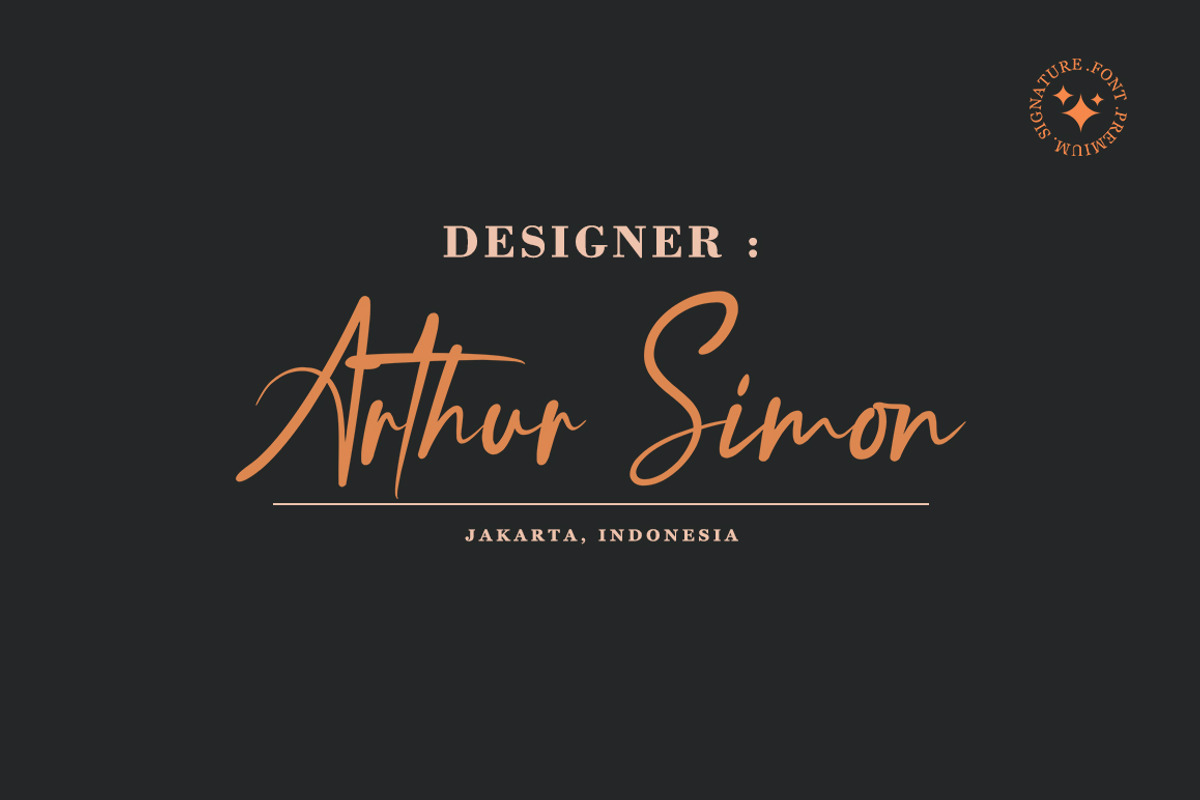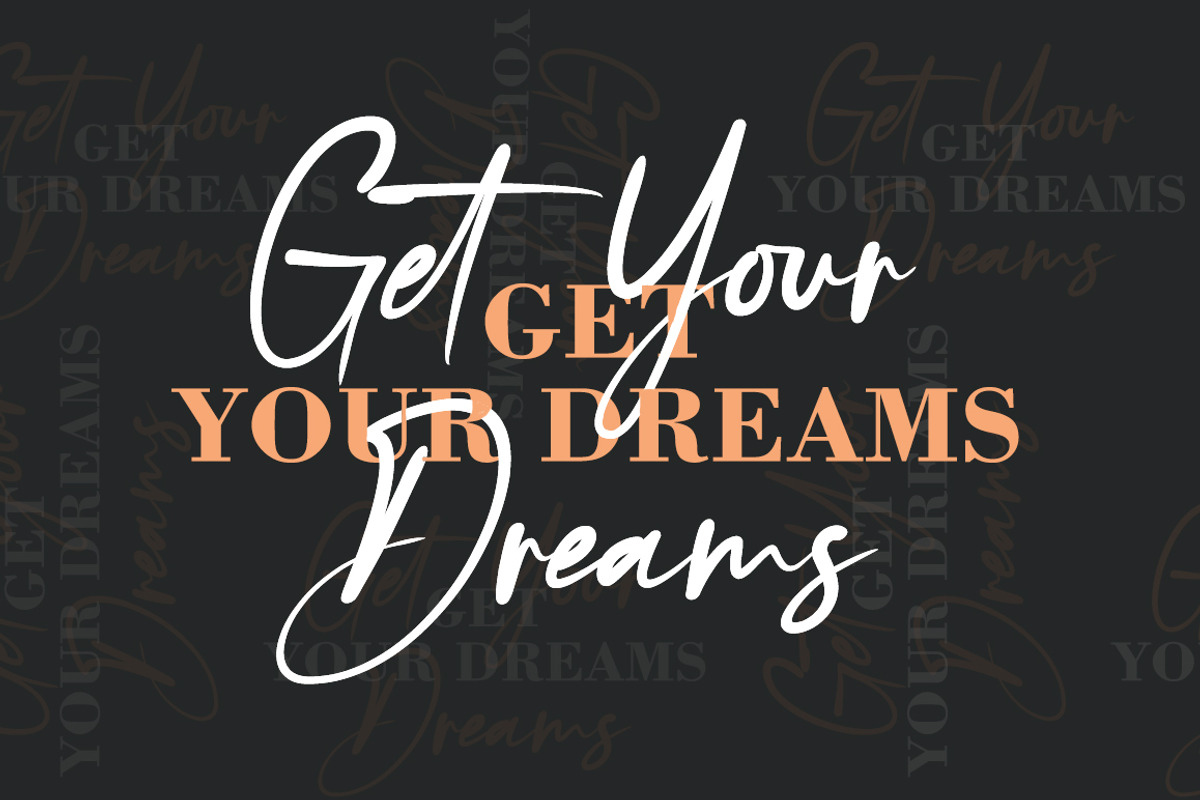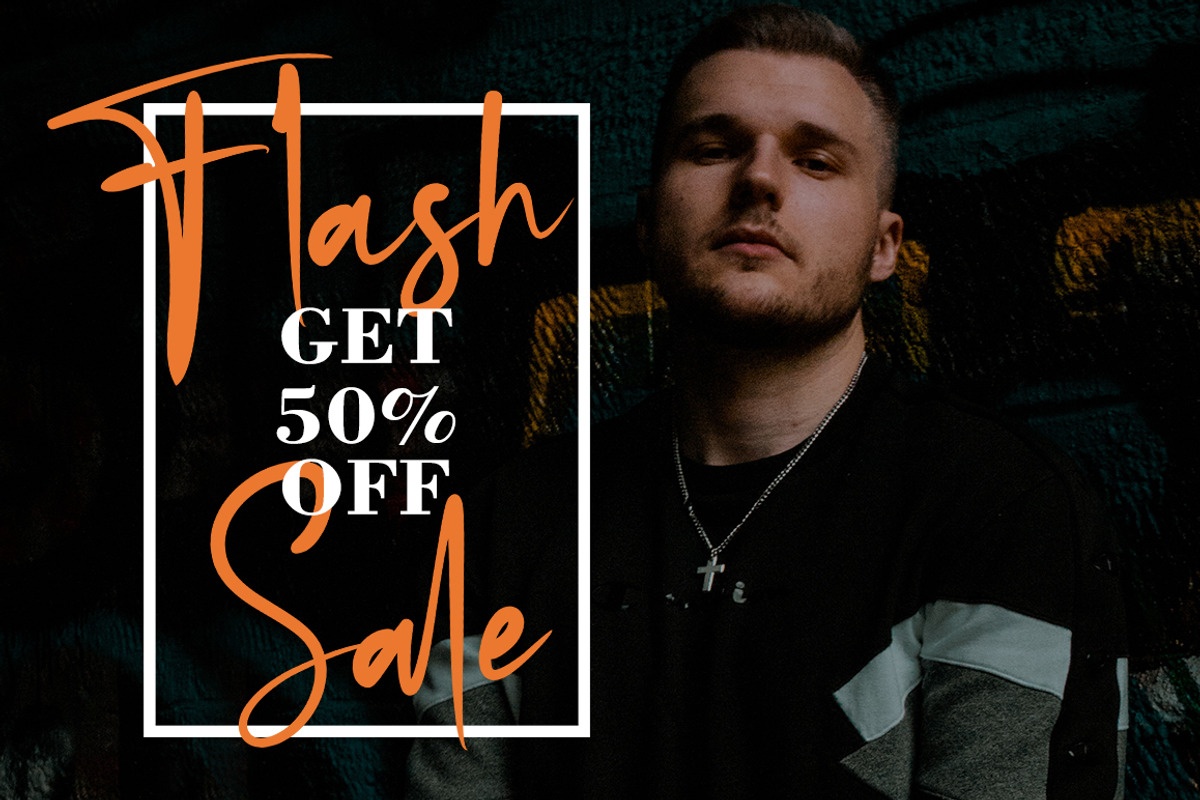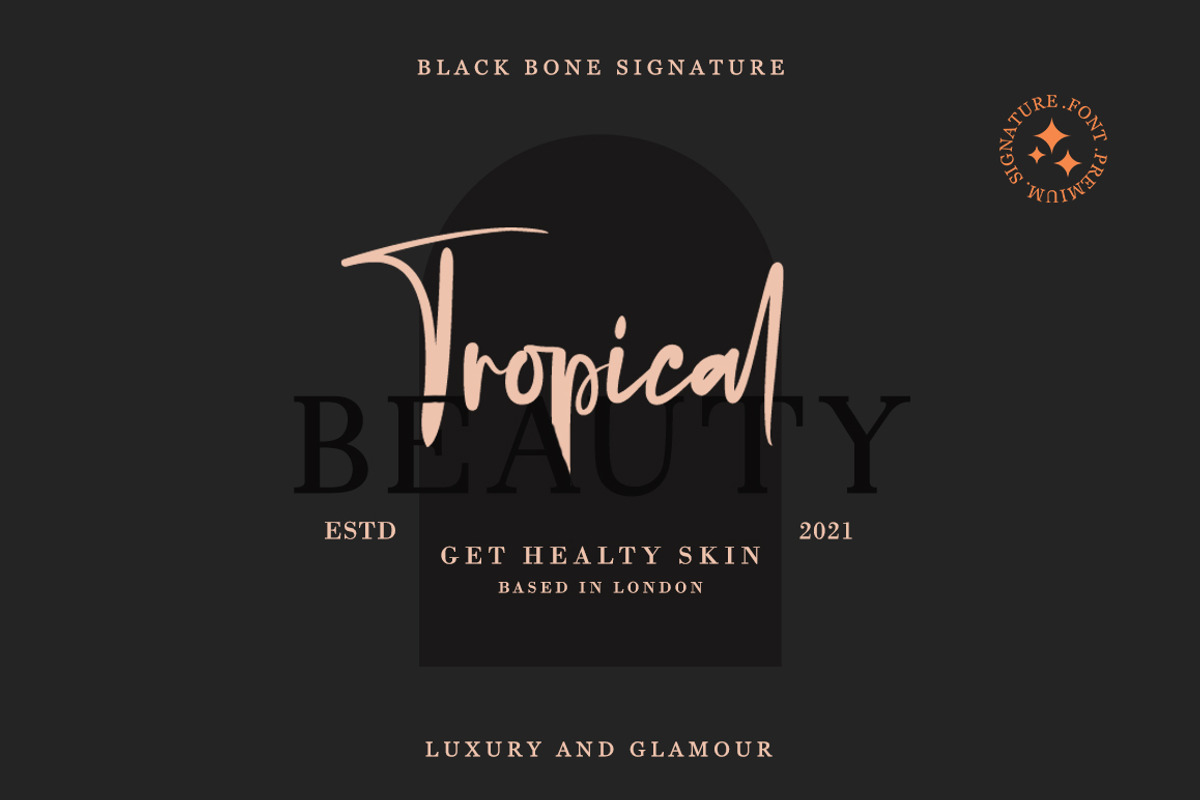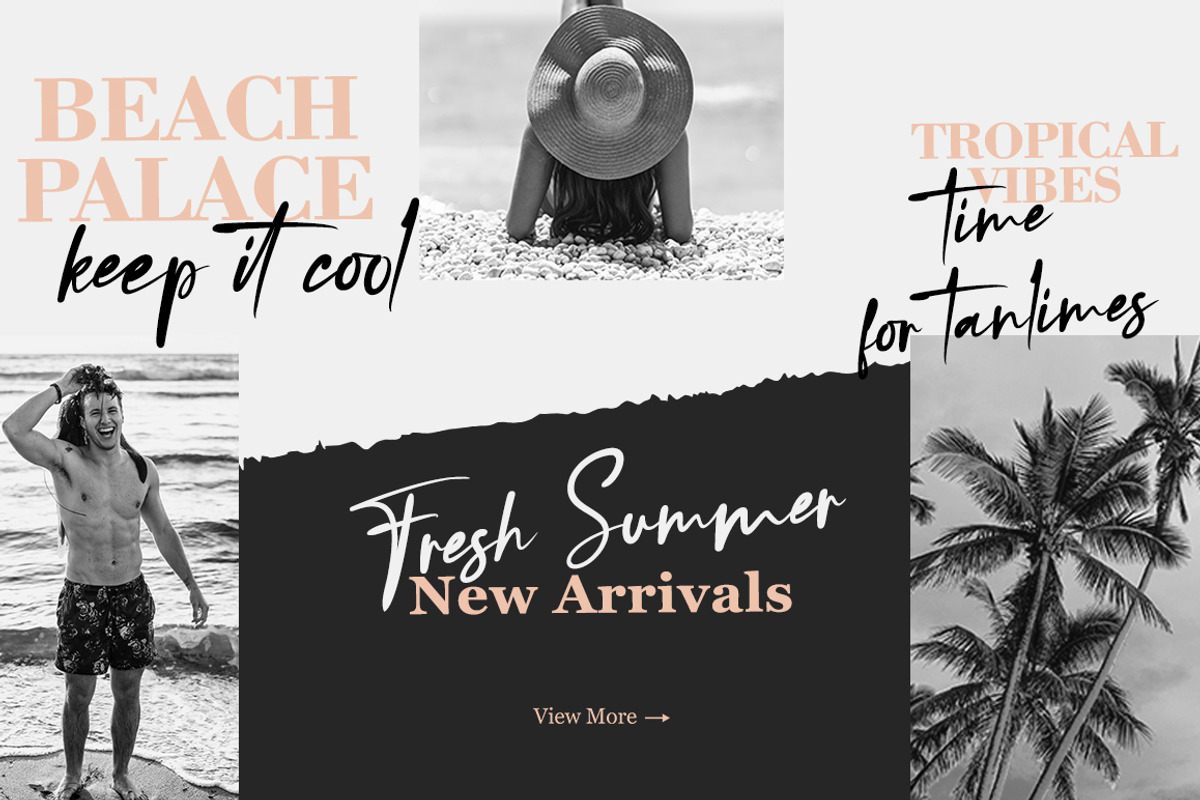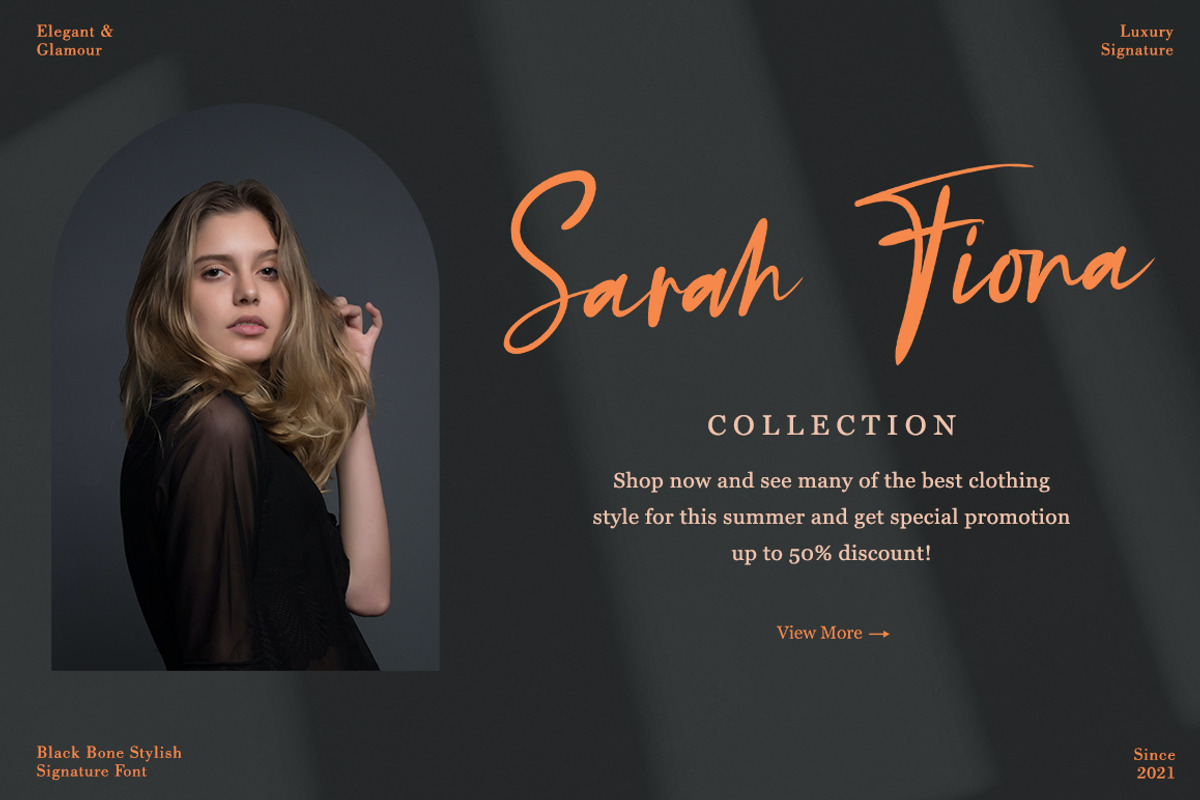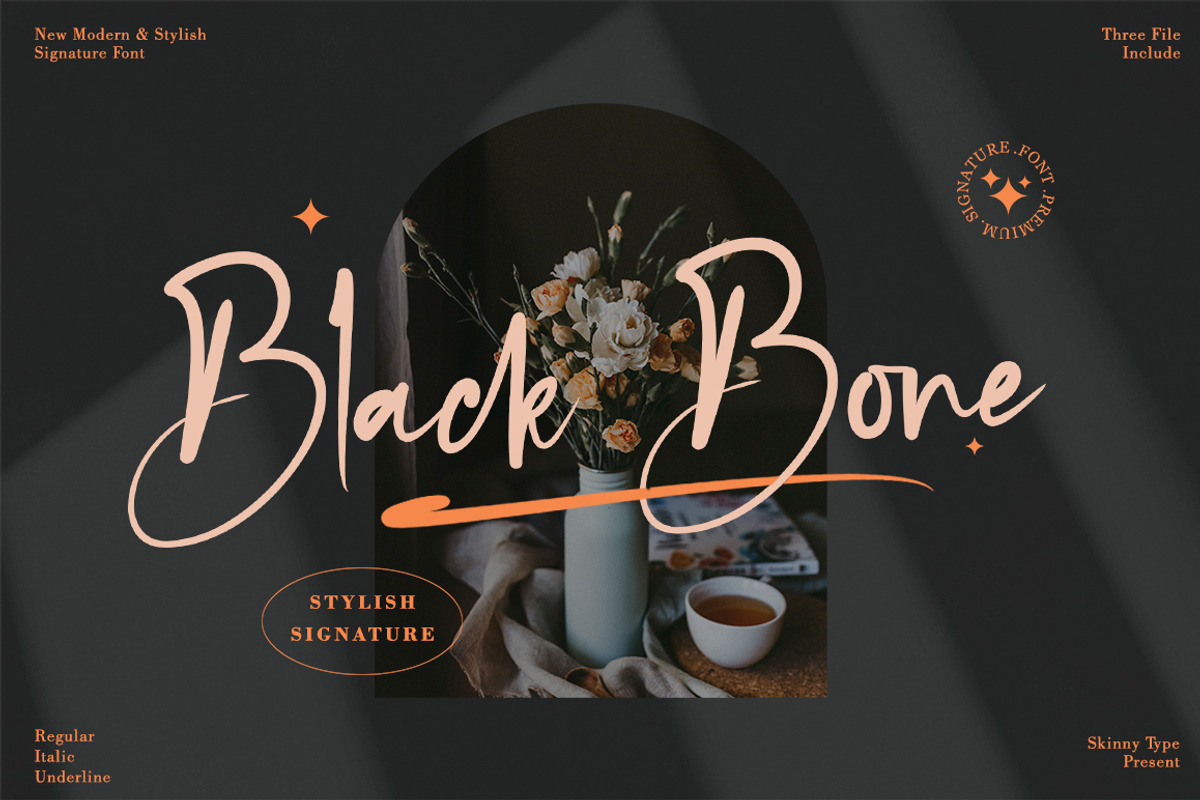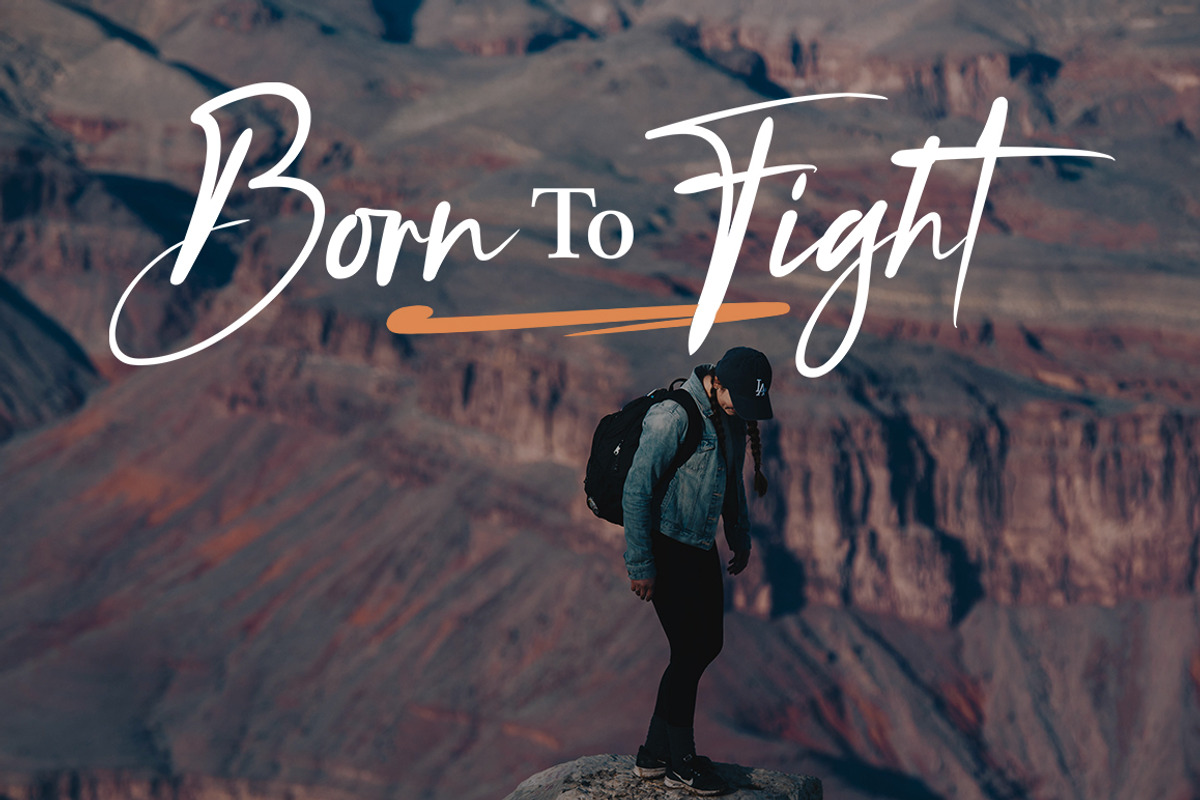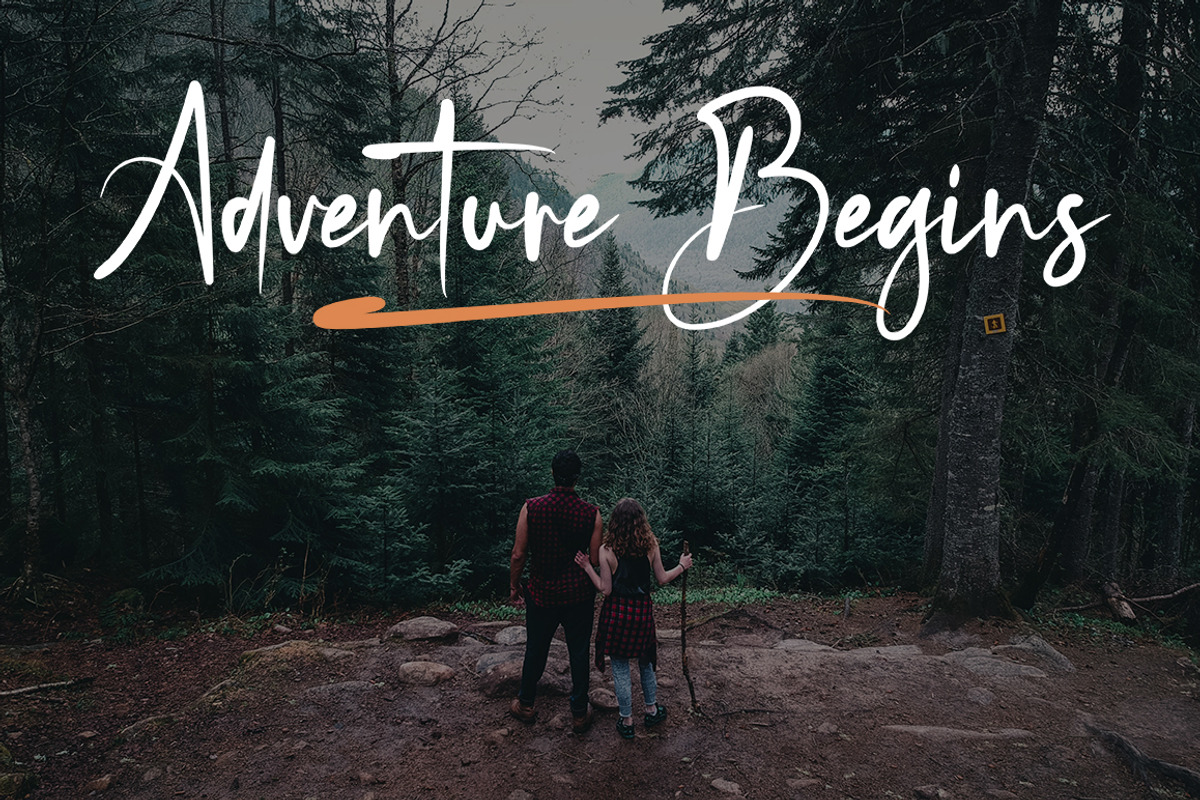
Black Bone - Signature Font
Black Bone Signature font is a classy, stylish, simple and elegant signature font. Specially designed with the concept of script fonts with natural pen strokes. The impression of soft line will be visible. I keep this font looks stylish, elegant, classy, modern, easy to use, and lots of combination options.
Black Bone Signature font is perfect for use as signature, branding, logos, quotes, card, wedding, social media, watermark, name tag, and many other project.
-Upper and Lowercase -Numerals & Symbols -Multilinguals Support -Ligatures -Swash